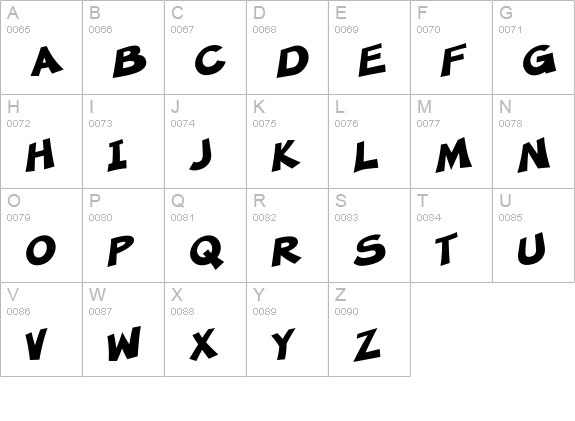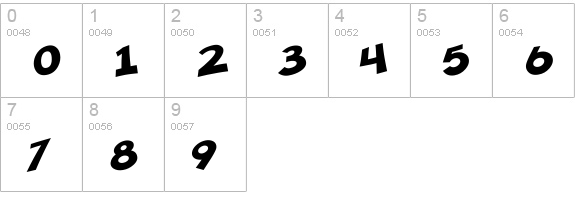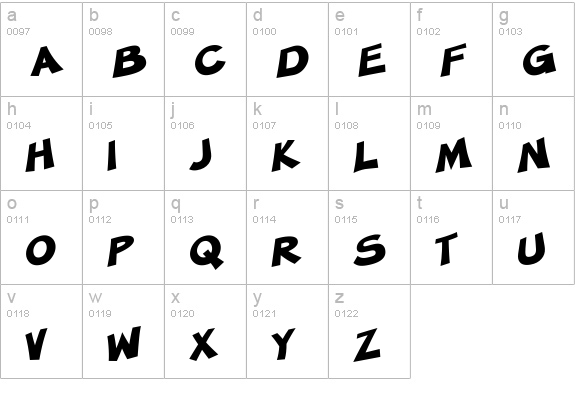
SF Minced Meat Bold Font Details
SF Minced Meat Bold is a strong, high-contrast variant in the SF typeface family \xE2\x80\x94 well suited to headlines, attention-grabbing titles, and strong calls-to-action.
Introducing SF Minced Meat Bold, a captivating and versatile font that will undoubtedly add a touch of boldness and sophistication to any design project. With its strong and dynamic appearance, this font is perfect for headlines, logos, posters, and any other creative endeavor that demands attention. The SF Minced Meat Bold font strikes the perfect balance between elegance and impact, making it an ideal choice for both professional and personal use. Its unique and intricate letterforms exude confidence and charm, leaving a lasting impression on viewers. One of the most remarkable aspects of SF Minced Meat Bold is that it is freely available to download at FontsMarket.com. This means that you can easily access and incorporate this remarkable font into your designs without any hassle. Whether you are a graphic designer, a content creator, or a typographic enthusiast, this font will undoubtedly become an invaluable asset in your creative toolkit. With SF Minced Meat Bold, you have the freedom to experiment and explore various design possibilities. Its bold and distinctive nature allows it to shine in both large and small sizes, ensuring legibility and impact across different mediums. From eye-catching advertisements to captivating book covers, this font has the power to elevate any project to new heights. So, why settle for ordinary when you can make a bold statement? Download SF Minced Meat Bold for free at FontsMarket.com and unleash your creativity like never before.